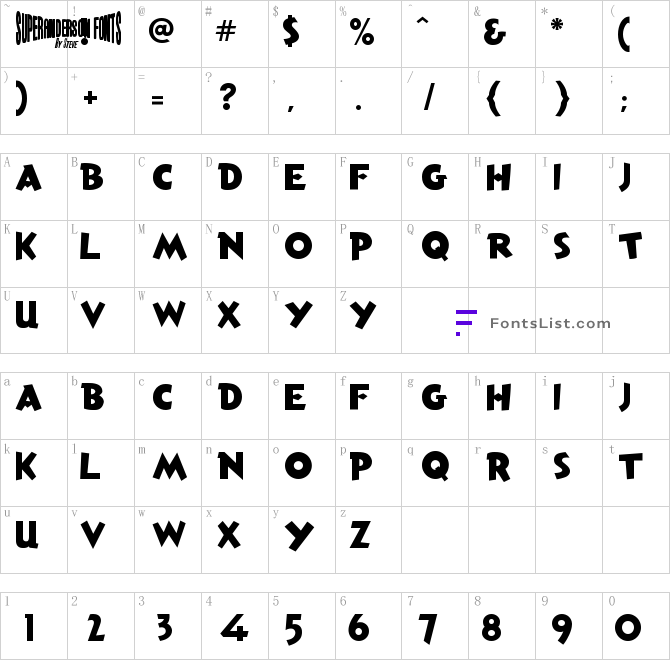
- Font Name:Anderson Torchy The Battery Boy
Anderson-Torchy-The-Battery-Boy.ttf is a very beautiful artistic font, Anderson-Torchy-The-Battery-Boy.ttf is widely used in the design and printing of various books and pictures,Anderson-Torchy-The-Battery-Boy.ttf has a strong visual impact,Anderson-Torchy-The-Battery-Boy.ttf is a commonly used font in newspapers, magazines and books, and is used in posters, e-commerce Poster design, store design, logo design, font design and other fields.Anderson-Torchy-The-Battery-Boy.